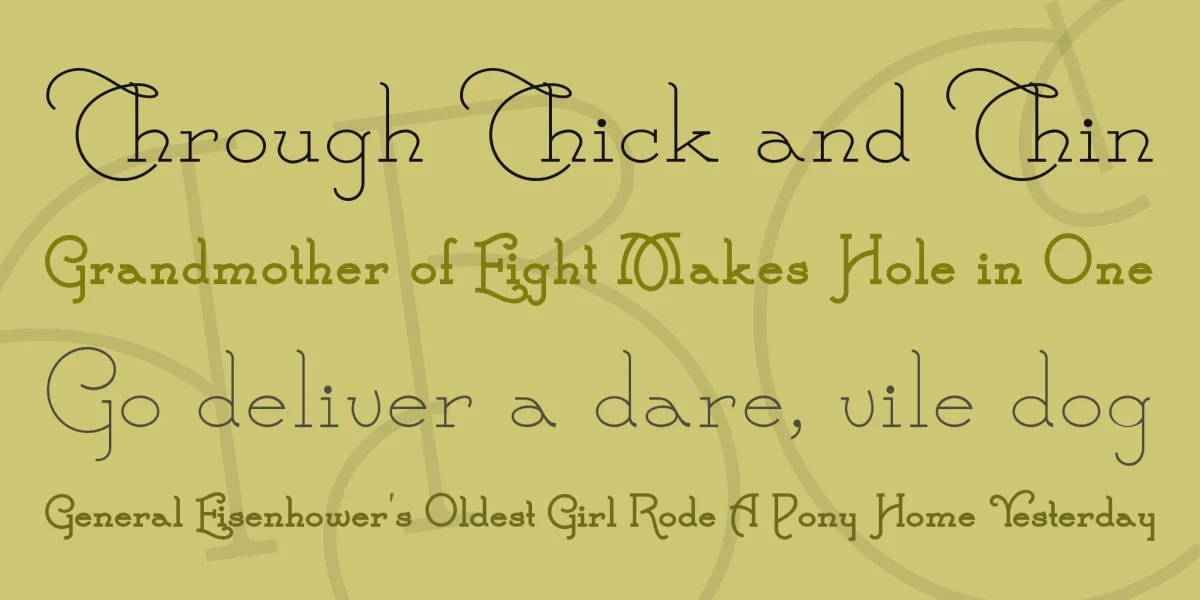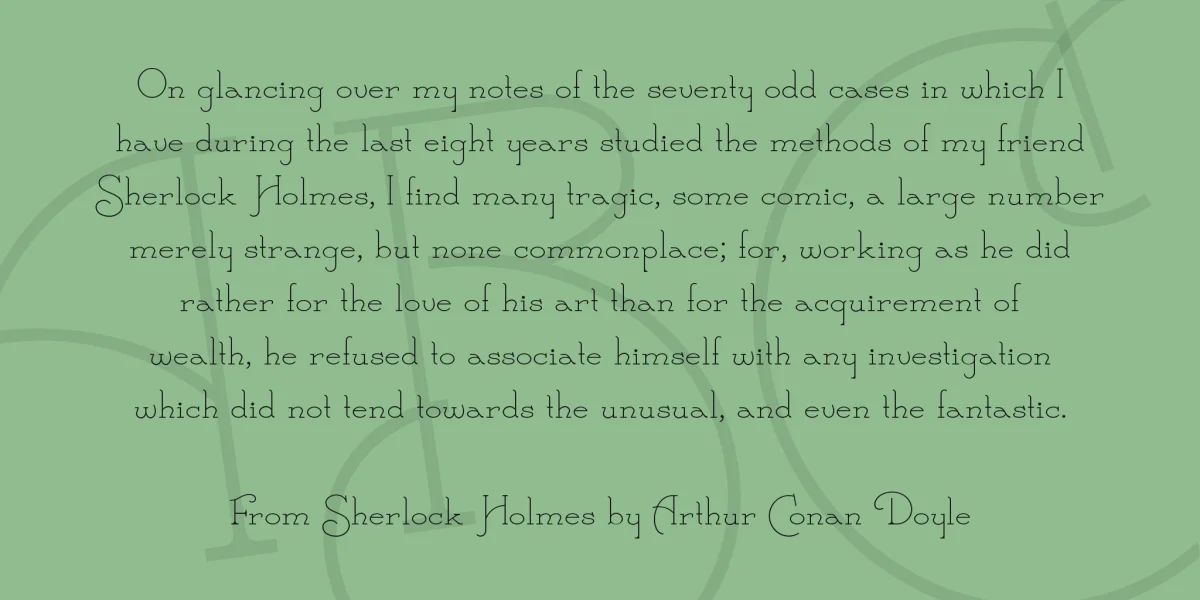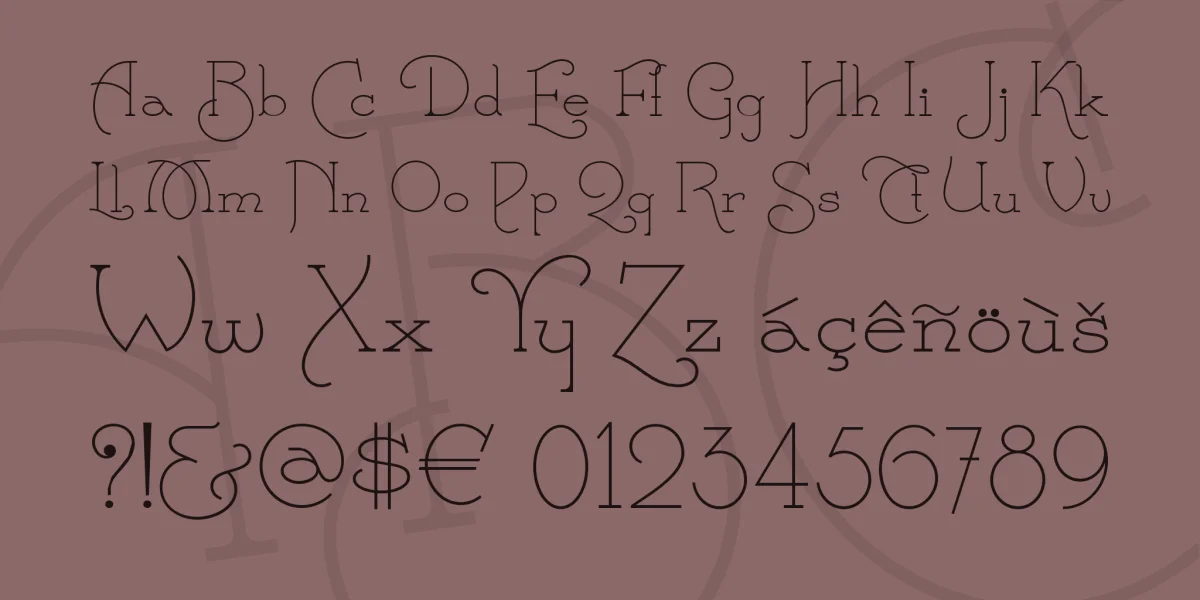
This typeface is an amalgam of Edwardian and Art Deco letterforms: the lowercase letters come from a turn-of-the-twentieth-century typeface named Amsterdam, and the uppercase letterforms come from a 1930s logotype for the Théâtre Moderne in Paris. Like its namesake, this typeface is not easily overlooked.